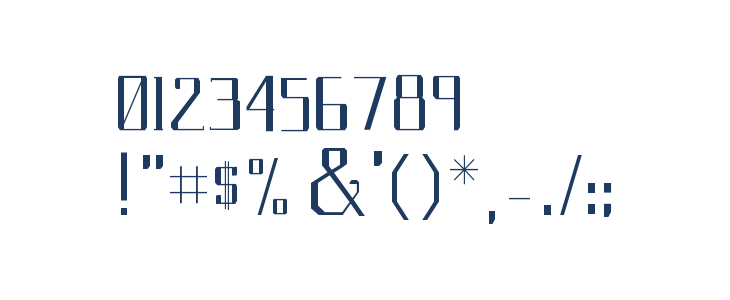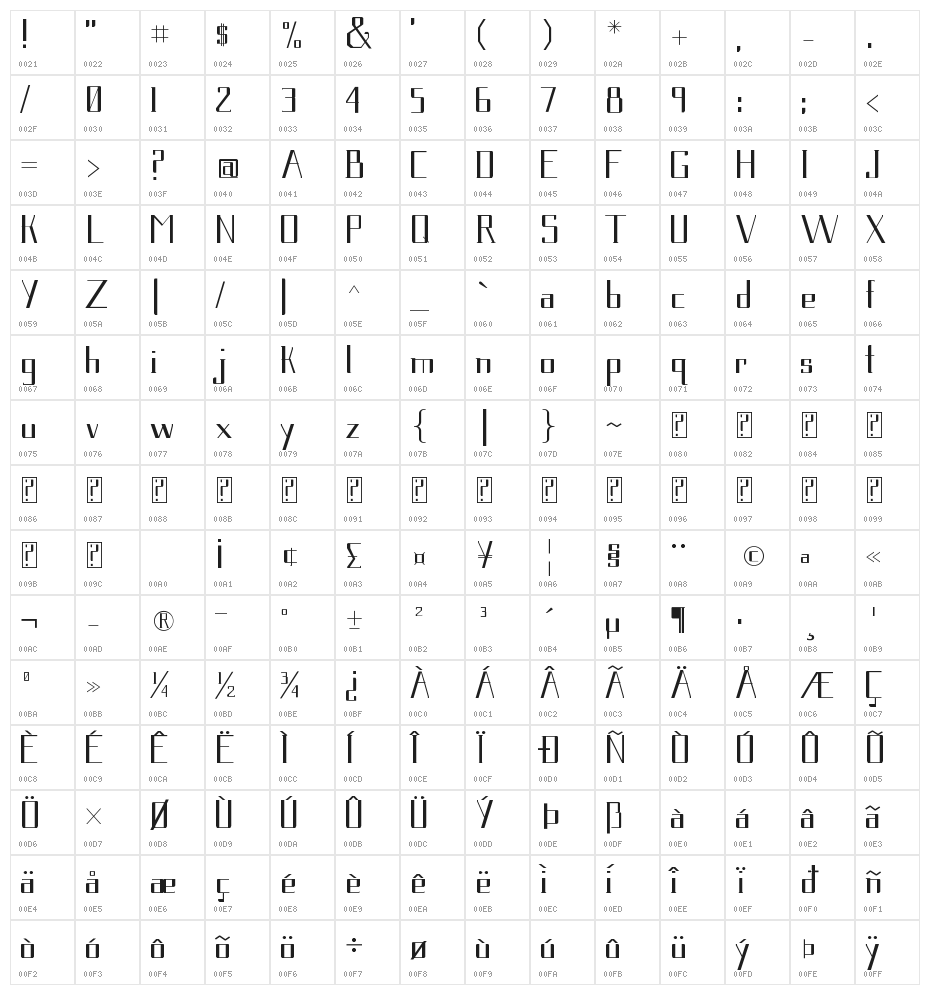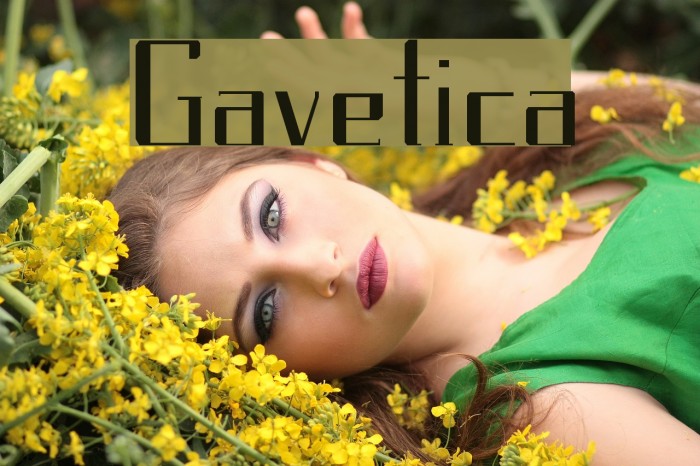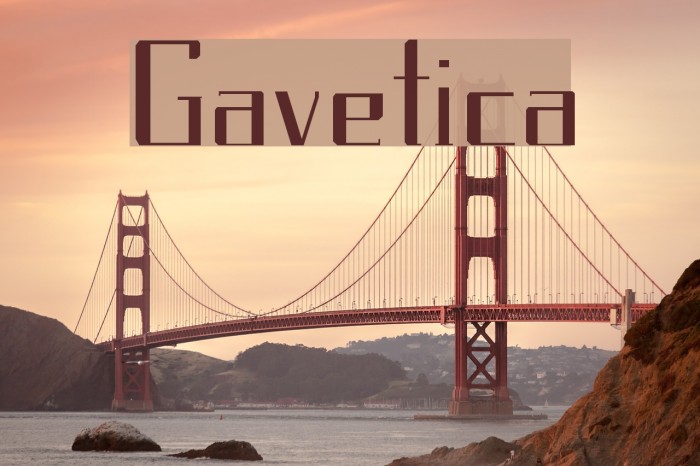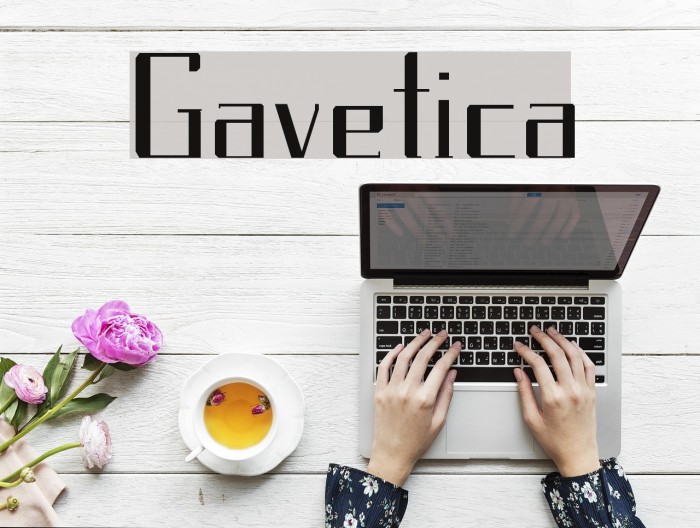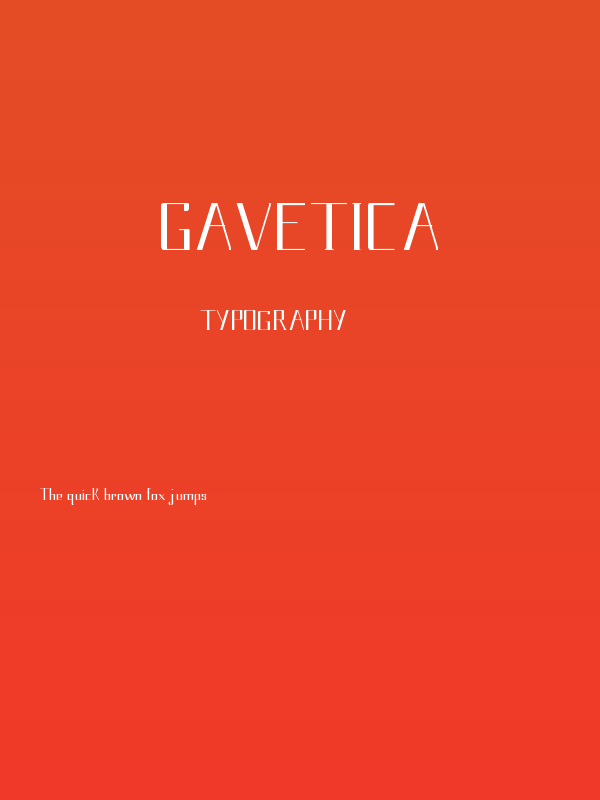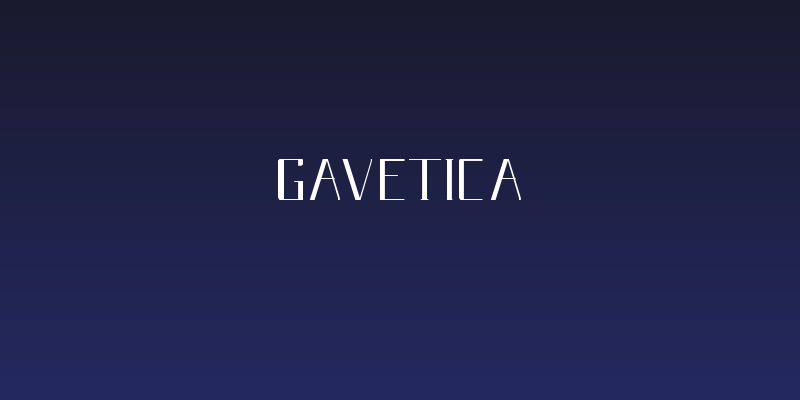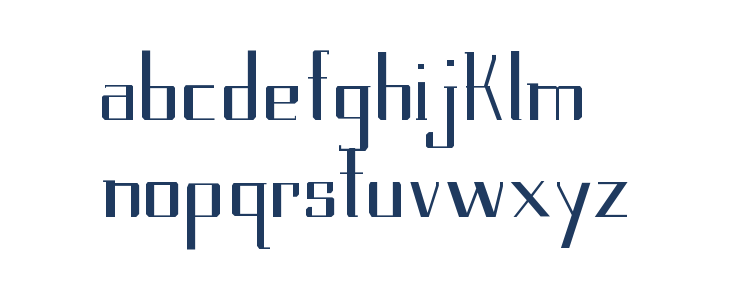
Gavetica Font
Gavetica Description
This font features a modern and geometric design with a distinct angular style. The uppercase letters are tall and narrow, with sharp edges and a futuristic appearance. The lowercase letters maintain a similar aesthetic, offering a cohesive look throughout the typeface. Numbers are bold and consistent with the overall design, while special characters are crafted to match the angular theme. The font's unique style makes it stand out, suitable for projects that require a contemporary and edgy feel.